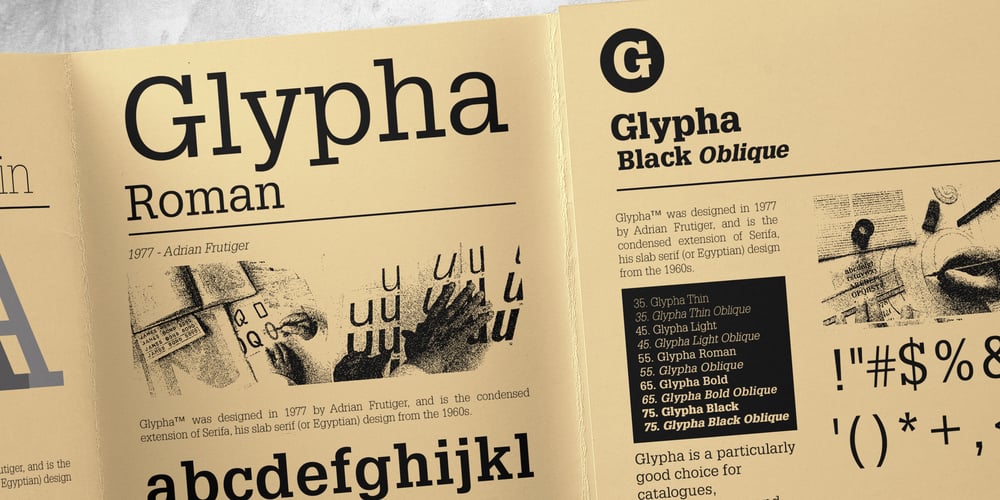
Glypha Font Family was designed by Adrian Frutiger and published by Linotype. Glypha contains 10 styles and family package options. Glypha was designed by Adrian Frutiger and appeared with D. Stempel AG in 1977. The font consists of ten cuts and is formally based on its predecessor, Serifa, although its lower case letters are a bit larger. Like Serifa, Glypha is also based on the general scheme used to design Univers.